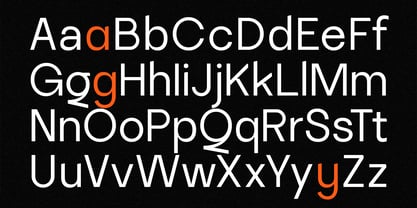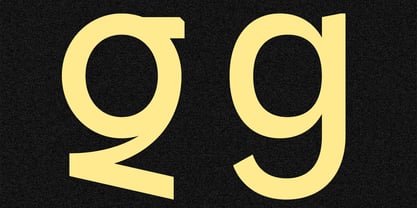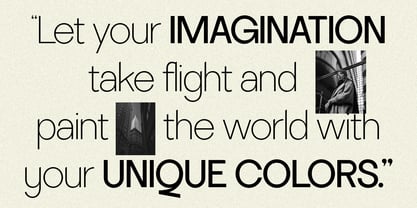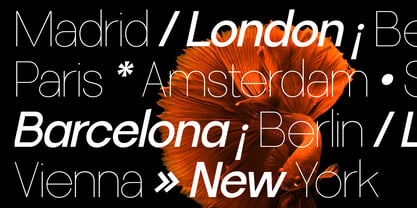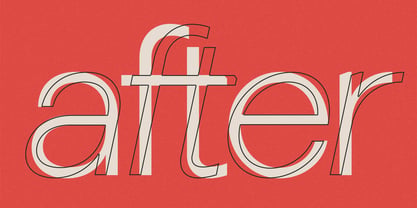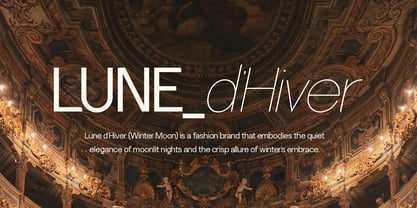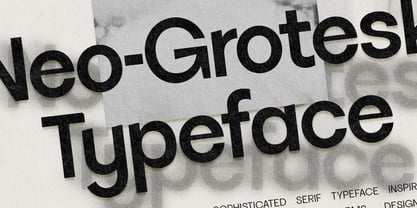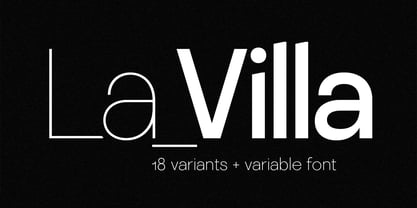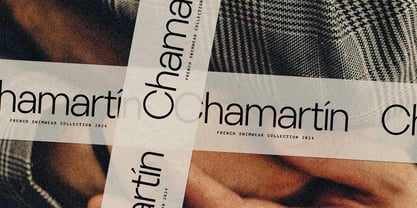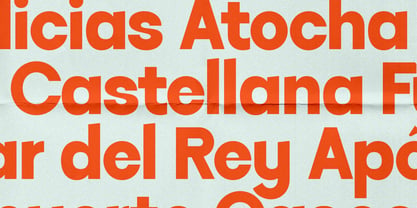
SLTF La Villa
The SLTF La Villa Font Family was designed by SilverStag and published by SilverStag. SLTF La Villa contains 18 styles and family package options. More about this family
Meet SLTF La Villa – a sleek, modern neo-grotesk sans serif font that delivers clarity, versatility, and character in equal measure. With clean lines, smooth geometry, and subtle humanist details, this typeface is crafted to support everything from bold branding to elegant editorial layouts.
La Villa includes 18 distinct styles – nine uprights and nine matching italics – ranging from Light to Black, plus a variable font for even more flexibility. Whether you’re designing digital interfaces, packaging, magazines, or minimalist portfolios, this family adapts seamlessly across weights and use cases.
Inspired by the balance of modernist Swiss typography and urban European style, SLTF La Villa brings effortless sophistication to contemporary design. It’s equipped with a full character set, extended Latin language support (over 90 languages), and fine-tuned spacing for perfect legibility at any size.
Every detail was designed with purpose – from its legible lowercase forms to the sharp contrast of its heavier weights. Use it for branding, signage, user interfaces, posters, or anywhere clarity and style matter.